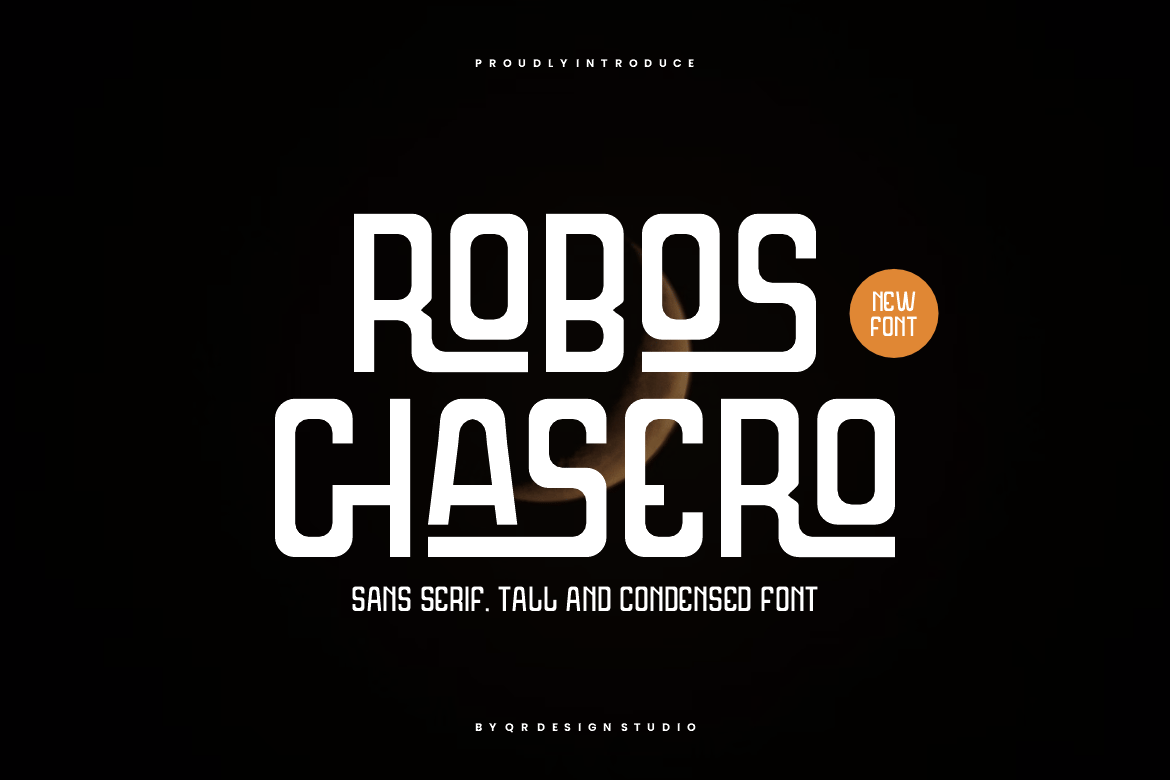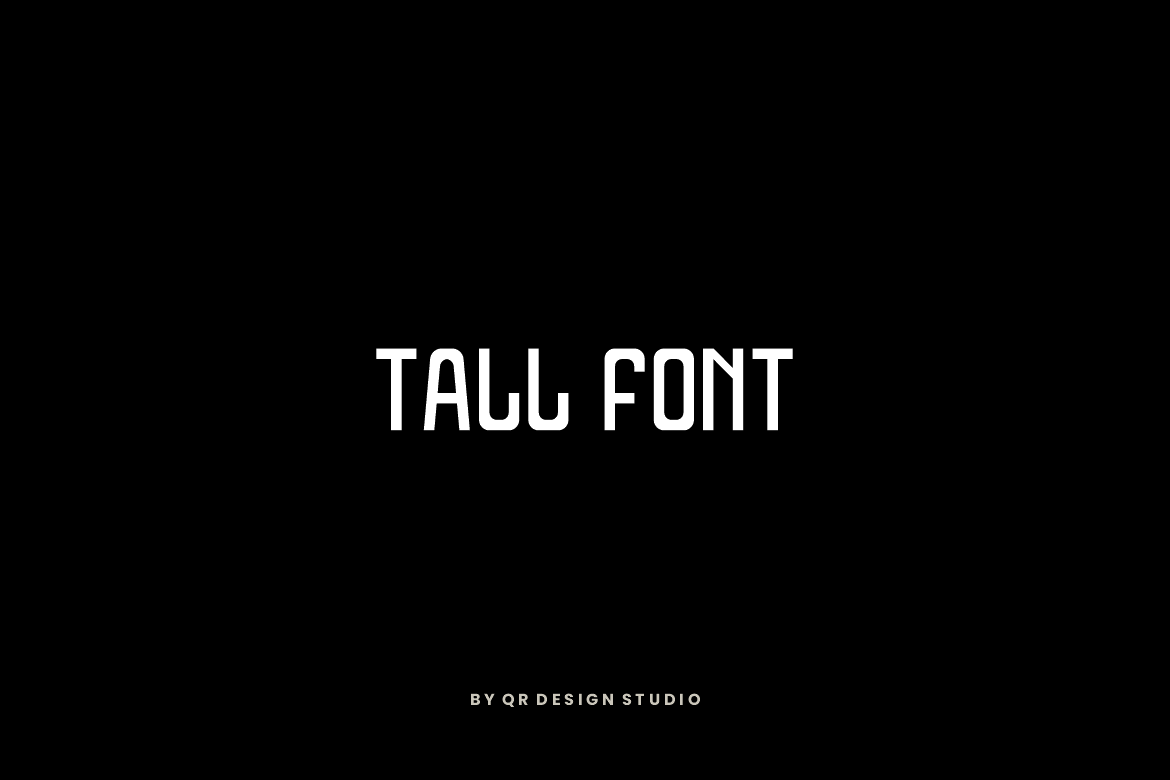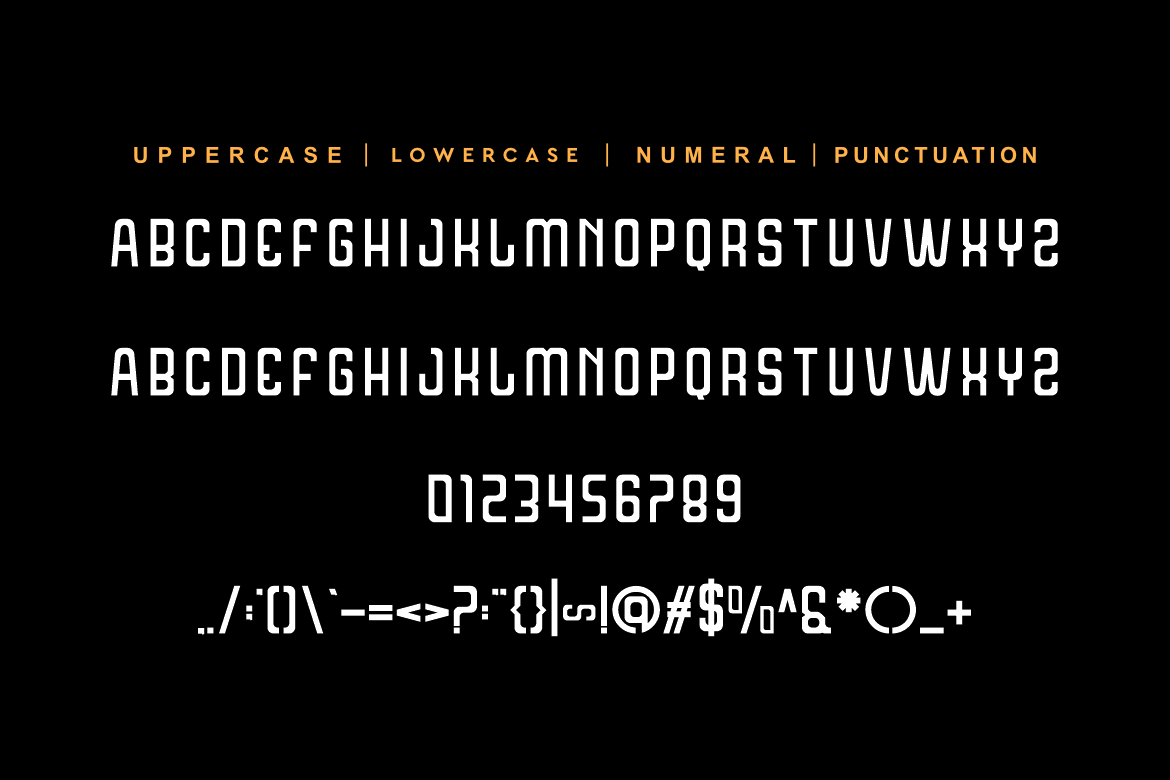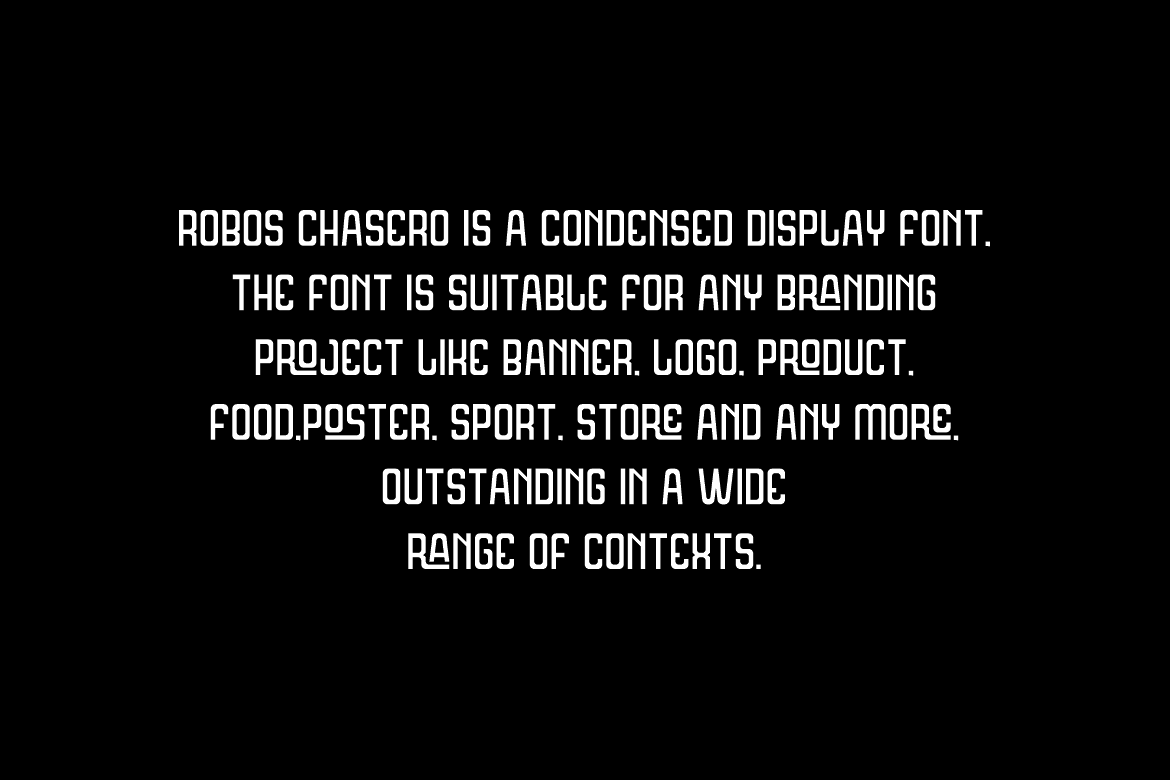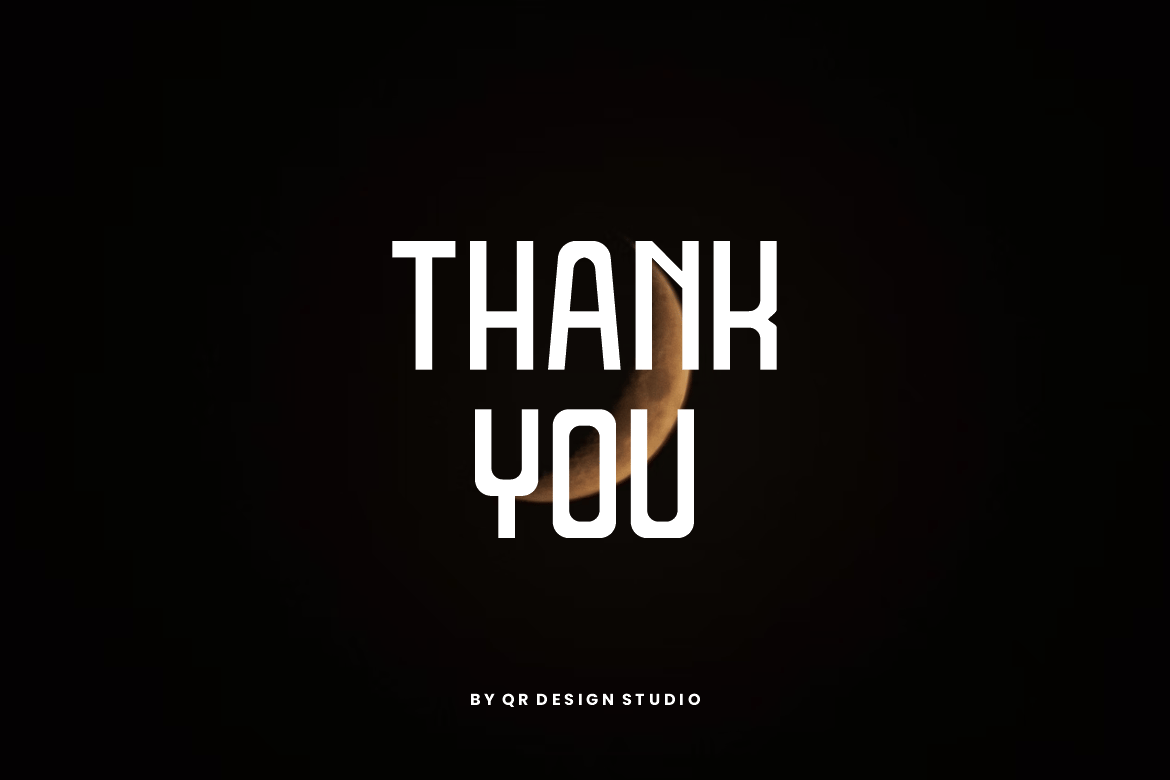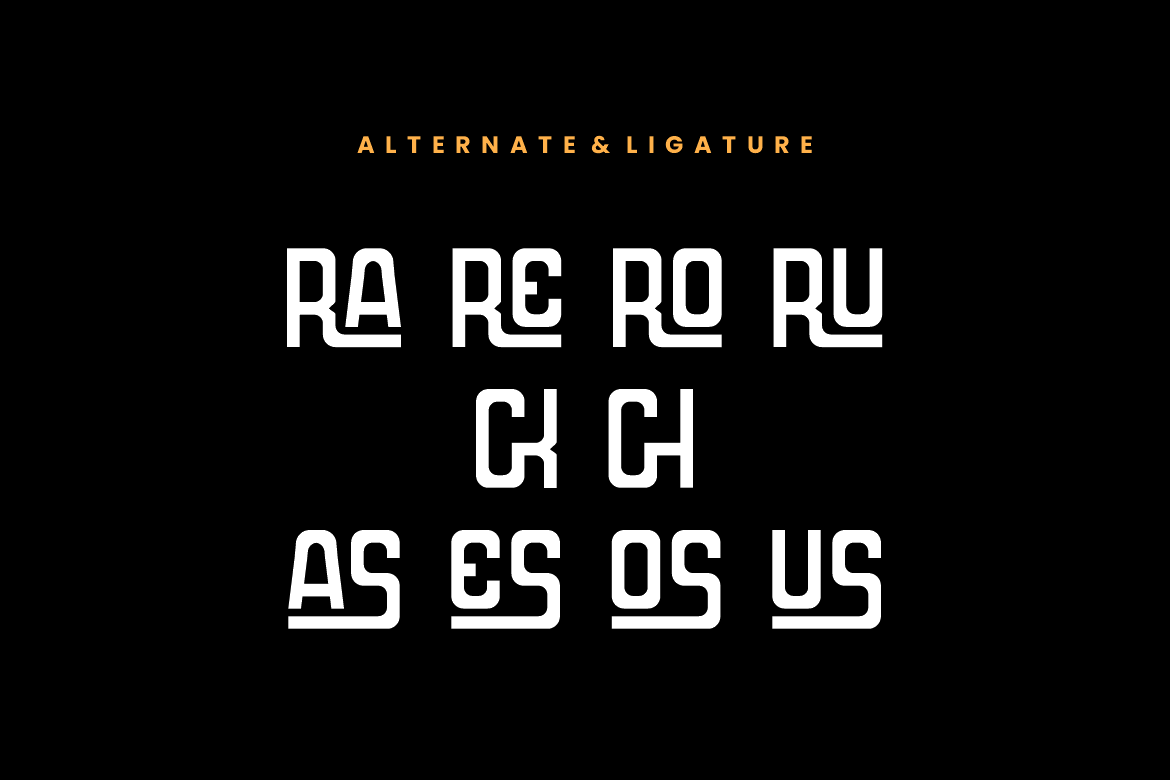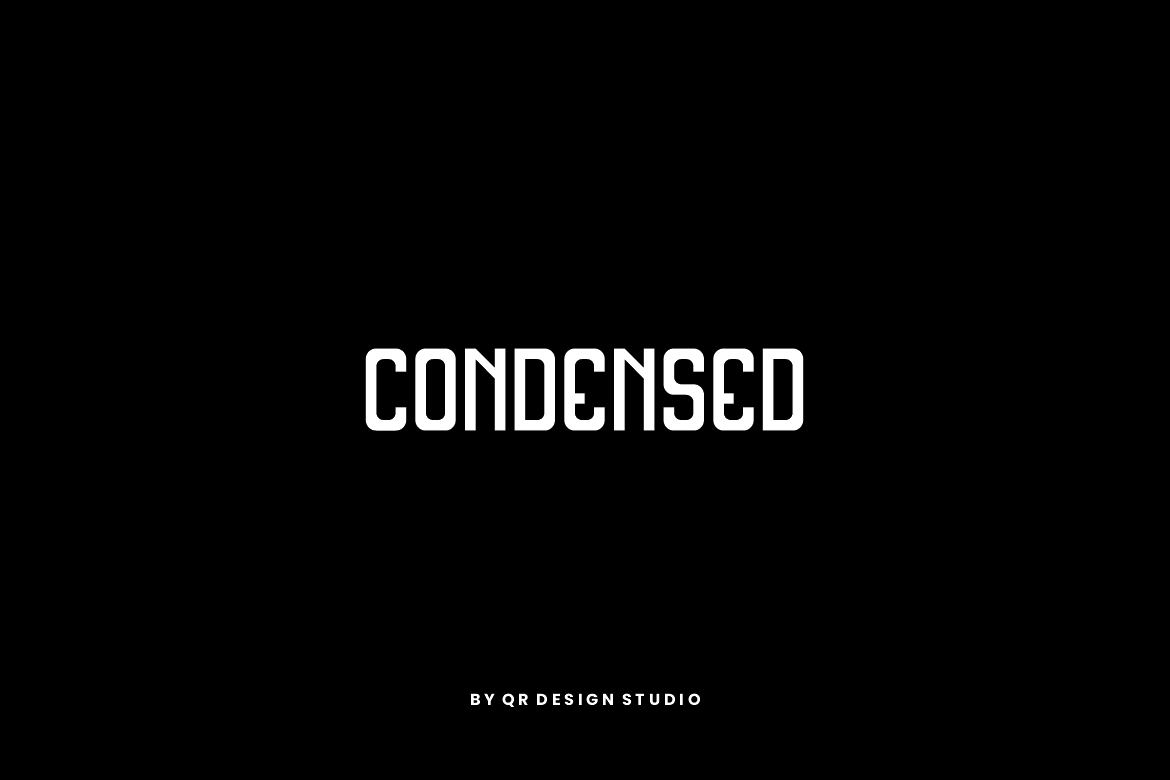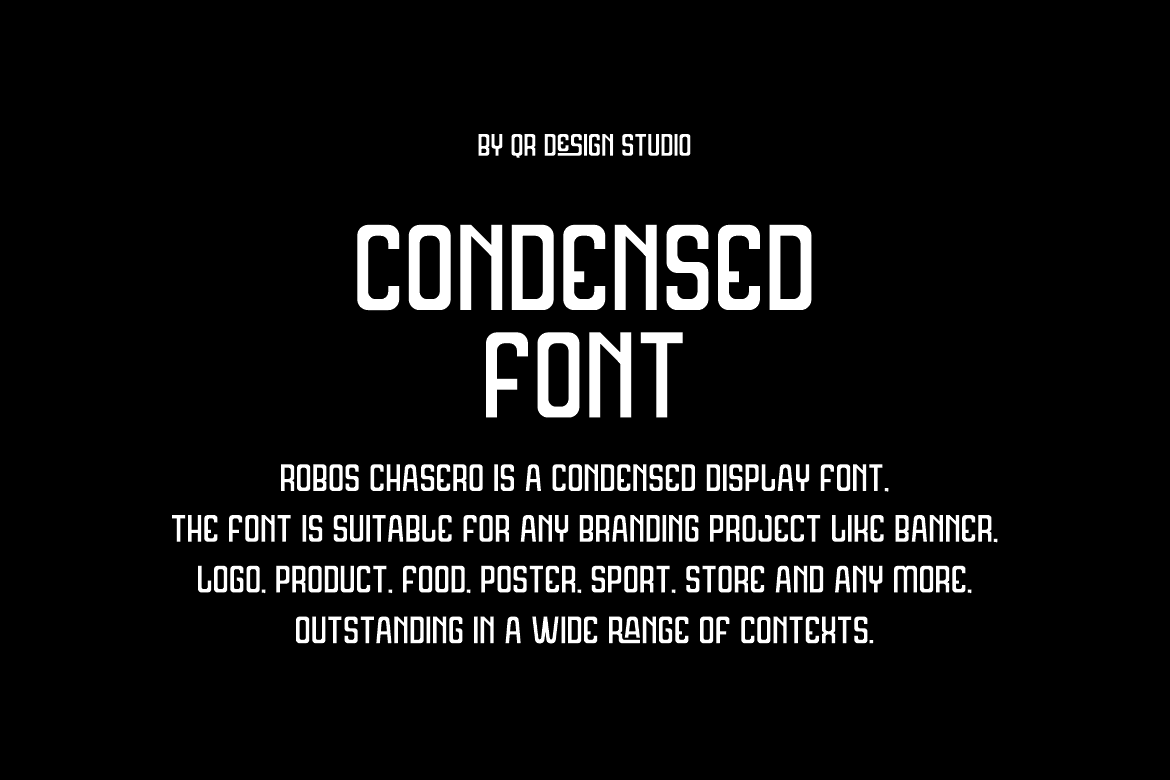
**Robos Chasero Font** is a bold and authentic display font.
The font is suitable for any branding project like poster, logo, sport, and many more.
Outstanding in a wide range of contexts.